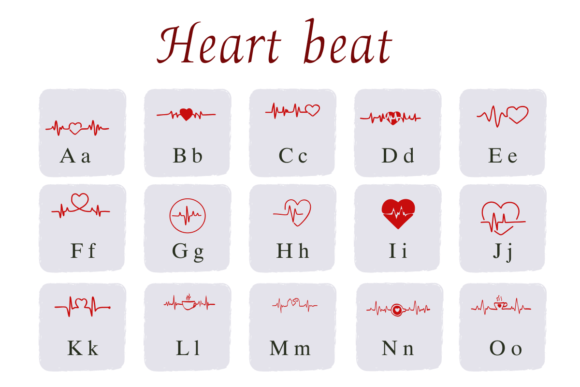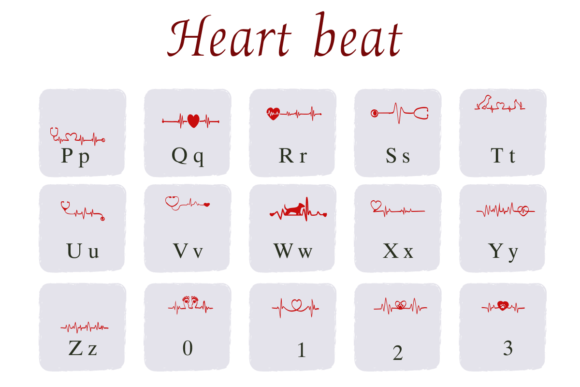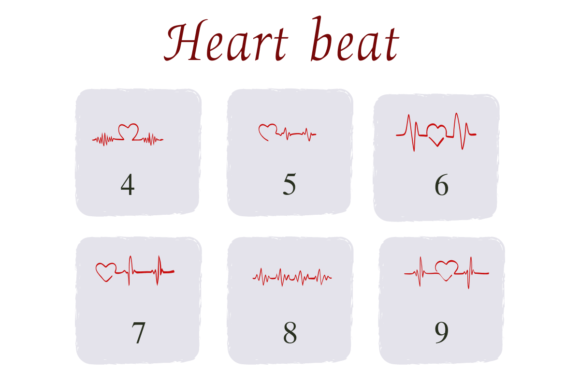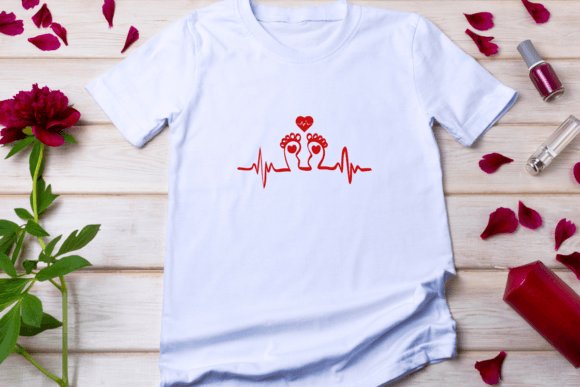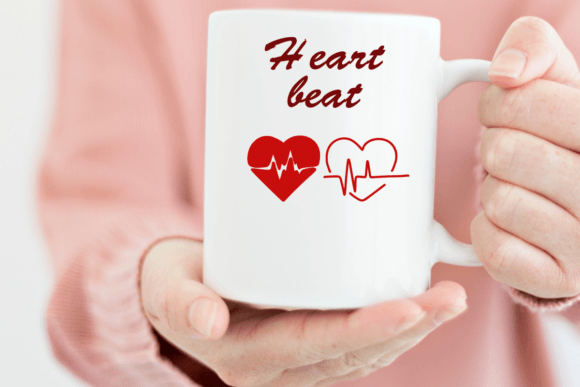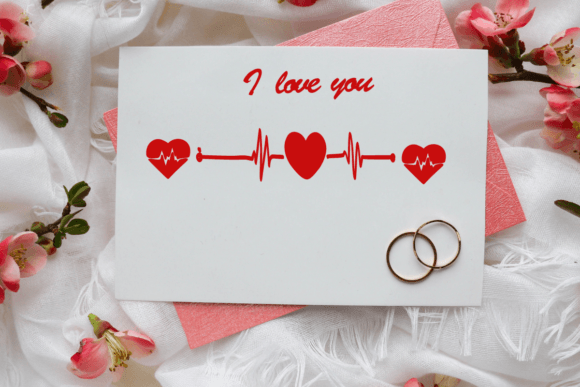
Heart Beat Font: Adding a Pulse of Love and Excitement to Your Designs
Are you looking for a unique and playful font to add a touch of romance or whimsy to your designs? Look no further than the Heart Beat Font, a special dingbat font filled with heartbeats that will bring life to any project. In this article, we’ll explore the features and benefits of Heart Beat, and how it can be used to create stunning designs that capture the heart.
What is Heart Beat Font?
Heart Beat is a dingbat font that is unlike any other. Instead of traditional characters, each glyph in the font is a heart-shaped beat, dancing to its own rhythm. This creates a fun and playful effect that is perfect for adding a touch of personality to your designs. Whether you’re creating a romantic invitation, a whimsical craft project, or a bold statement piece, Heart Beat is the perfect choice.
Features of Heart Beat Font
- Unique Heart-Shaped Beats: Each character in the Heart Beat font is a heart-shaped beat, adding a pulse of love and excitement to your designs.
- Playful and Whimsical: The font’s playful and whimsical nature makes it perfect for adding a touch of romance or fun to any project.
- Dingbat Font: As a dingbat font, Heart Beat can be used to add a decorative touch to your designs, creating a visually appealing effect.
- Easily Customizable: Heart Beat can be easily customized to fit your design needs, making it perfect for a wide range of projects.
Benefits of Using Heart Beat Font
So why choose Heart Beat Font for your designs? Here are just a few benefits of using this unique and playful font:
- Adds a Touch of Romance: Heart Beat is perfect for adding a touch of romance to your designs, making it ideal for Valentine’s Day, anniversaries, weddings, and other special occasions.
- Creates a Fun and Playful Effect: The font’s playful and whimsical nature makes it perfect for creating fun and playful designs that capture the heart.
- Perfect for Crafters and Designers: Heart Beat is a great choice for crafters and designers who want to add a unique and decorative touch to their projects.
- Easy to Use: Heart Beat is easy to use and can be easily integrated into your design workflow.
Using Heart Beat Font in Your Designs
So how can you use Heart Beat Font in your designs? Here are a few ideas to get you started:
- Valentine’s Day Cards and Invitations: Use Heart Beat to create romantic Valentine’s Day cards and invitations that capture the heart.
- Wedding Stationery: Add a touch of romance to your wedding stationery with Heart Beat, perfect for wedding invitations, save the dates, and more.
- Craft Projects: Use Heart Beat to add a decorative touch to your craft projects, such as scrapbooking, card making, and more.
- Social Media Graphics: Create fun and playful social media graphics with Heart Beat, perfect for Valentine’s Day, anniversaries, and other special occasions.
Tips and Tricks for Using Heart Beat Font
Here are a few tips and tricks for using Heart Beat Font in your designs:
- Experiment with Different Sizes and Colors: Experiment with different sizes and colors to create a unique and eye-catching effect.
- Combine with Other Fonts: Combine Heart Beat with other fonts to create a visually appealing effect.
- Use in Combination with Images: Use Heart Beat in combination with images to create a stunning and eye-catching design.
In conclusion, Heart Beat Font is a unique and playful dingbat font that is perfect for adding a touch of romance or whimsy to your designs. With its heart-shaped beats and playful nature, Heart Beat is a great choice for designers and crafters who want to create stunning and eye-catching designs. Whether you’re creating a romantic invitation, a whimsical craft project, or a bold statement piece, Heart Beat is the perfect choice.